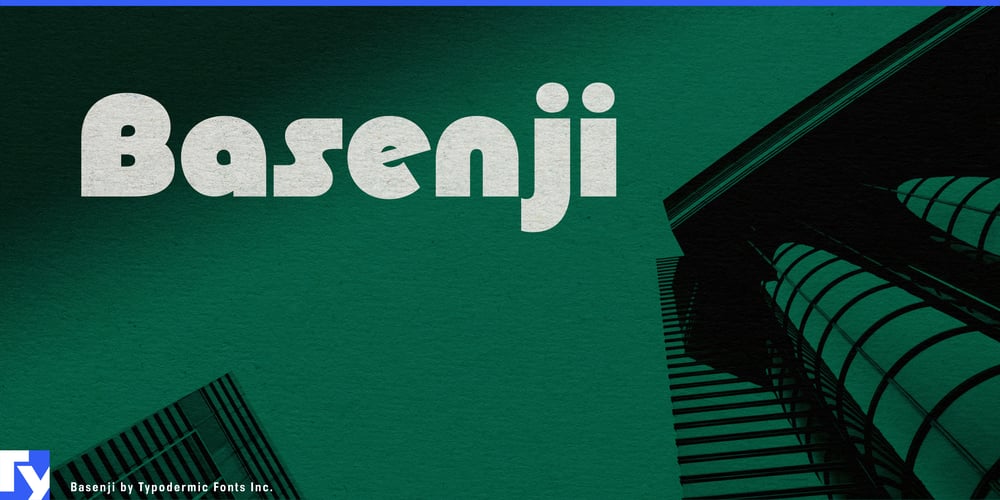
Basenji Font Family was designed by Ray Larabie and published by Typodermic. Basenji contains 18 styles and family package options. Basenji is a flowing headline typeface that pays homage to the modular geometric design trends of the 1970s while offering modern versatility and practicality. This unique font family blends futuristic curves with subtle retro flair, creating a design tool that’s both nostalgic and contemporary.Drawing inspiration from iconic typefaces like Rondo, Pump, Bauhaus, and Blippo, Basenji amplifies their best elements and packages them into a comprehensive, adaptable design toolkit. Available in nine weights with matching italics, Basenji offers designers a wide range of expressive options for various projects.For those seeking ultimate flexibility, look for Basenji Variable—a cutting-edge variable font version that provides seamless weight adjustments within a single file. Find it wherever quality fonts are sold. Basenji’s language support is extensive, covering most Latin-based European languages, Vietnamese, Greek, and a wide range of Cyrillic-based writing systems. This makes it an excellent choice for global branding and multilingual publications.Whether you’re crafting headlines, designing logos, or creating engaging display text, Basenji offers the perfect blend of retro charm and modern functionality. Its geometric forms and subtle nods to mid-century design make it an ideal choice for projects that require a touch of nostalgia without sacrificing contemporary appeal. Choose Basenji for a typeface that’s as versatile as it is visually striking—a true workhorse with undeniable character.